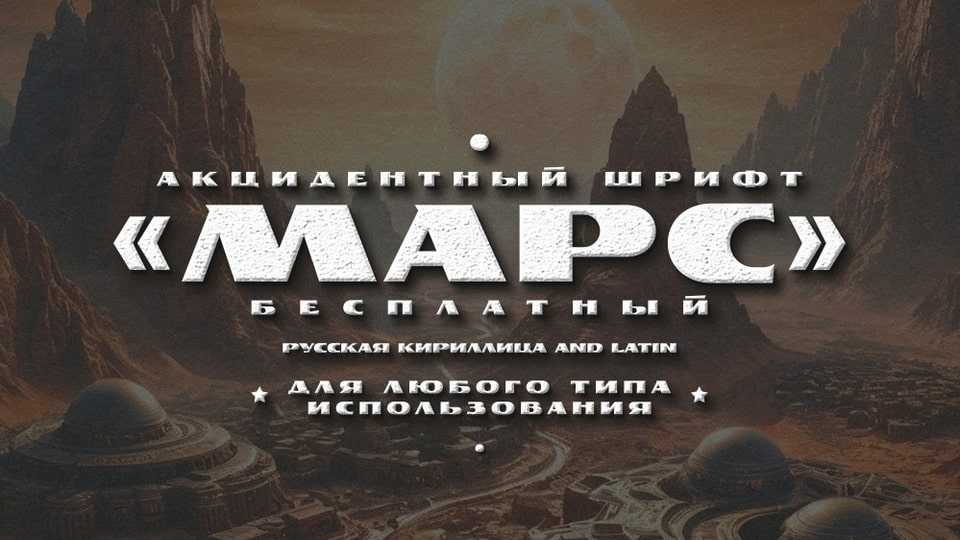
Download TD Mars font, a bold, strong, contrast display typeface that commands attention with its sharp details and striking presence. It features thick, powerful letterforms juxtaposed with fine, precise lines, creating a dynamic interplay of weight and delicacy.
Designer: Dmitry Tektov